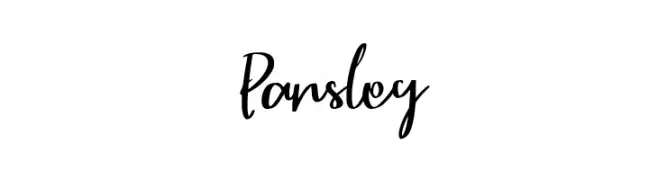
A geometric and modern font with sharp angles and clean lines.
An elegant, flowing script font with high contrast and decorative swashes.
A bold, playful script font with a casual, handwritten style.
A playful, casual handwritten font with smooth, flowing lines.
A fluid and elegant script font with an italic slant.
A decorative and ornate font with intricate serifs and artistic details.
A modern, geometric font with rounded edges and consistent stroke width.
A bold, art deco-inspired decorative sans-serif with geometric shapes and high contrast.
A playful, handwritten font with tall, narrow letters and rounded edges.
A modern and elegant font with clean lines and balanced characters.
A charming handwritten font with elegant, playful characteristics.
A whimsical, handwritten font with playful, slender strokes and an organic feel.
A bold, rounded serif font with a playful yet structured style.
A bold, vintage-inspired serif font with rounded edges and a compact style.
A bold, shadowed font with a three-dimensional effect, perfect for standout designs.
A bold, high-contrast font with dramatic, theatrical flair.
A bold, distressed font with a fragmented, rugged appearance.
A bold, geometric font with angular shapes and a futuristic style.
An elegant script font with flowing, interconnected letters and artistic flair.
An elegant, cursive font with flowing, ornate characters.
Bold geometric display font with high contrast.
A bold, tall, and narrow font with high contrast, perfect for impactful headlines.
A bold, cursive font with elegant, flowing lines and a handwritten style.
A bold, handwritten font with dynamic and expressive letterforms.
Bold, playful display font with geometric, irregular forms.
Distressed, jagged display font with a horror or chaotic theme.
A bold, playful font with a hand-drawn, whimsical style.
A playful, bubbly font with a hand-drawn, energetic style.
A bold, decorative font with a playful, dripping style ideal for festive designs.
A bold, edgy font with rough, brush-like strokes and a rebellious feel.
A bold, edgy, and dynamic font with a graffiti-like, hand-drawn style.
A bold, playful font with a dotted texture and rounded characters.